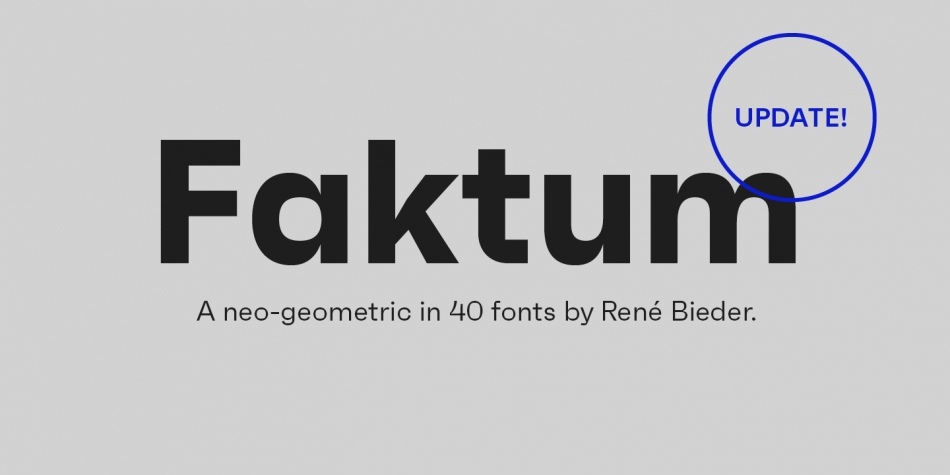
Faktum Font
Faktum Font is perfect for evidence-based branding projects, research institution identities, analytical documentation, scientific communications, data-driven marketing materials, investigative journalism applications, factual reporting typography, and objective advertising campaigns. This authoritative typeface works exceptionally well in both digital applications and print media where factual accuracy and evidence-based credibility are fundamental design requirements.
What makes Faktum Font so exciting is its uncompromising interpretation of objective truth and factual precision through systematic letterforms that embody the same rigorous accuracy and methodical approach demanded by scientific research and evidence-based analysis. The font features reliable characters with analytical proportions, systematic spacing, and factual details that communicate objectivity, empirical reliability, and the unwavering commitment to truth that defines credible research and journalism. Its authoritative personality and scientific heritage make it ideal for organizations seeking to establish credibility through factual accuracy while appealing to audiences who value evidence-based decision making and objective analysis.
The Faktum Font family includes comprehensive weight variations from light to bold, along with matching italic styles and analytical alternates. Each style maintains the typeface's factual character while offering extensive multilingual support, precise numerals, research-focused punctuation marks, and special characters designed to enhance scientific communications and evidence-based branding efforts across global research and journalism markets.
This remarkable typeface represents the perfect convergence of scientific methodology and contemporary typography for research and media industries. Whether you're developing research institution identities, creating scientific publication materials, or designing investigative journalism platforms, Faktum Font Free Download delivers the factual authority and versatility needed for credible evidence-based communications. The font's analytical approach makes it particularly effective for research organizations, news publications, scientific journals, and institutions prioritizing accuracy, objectivity, and the systematic pursuit of verifiable truth.
The precisely engineered factual construction and optimized analytical performance in Faktum Font ensure maximum credibility while maintaining clear communication across all research applications. Its authoritative presence makes it ideal for scientific branding, evidence-based marketing materials, and analytical communications where its full factual character can create lasting trust with audiences seeking reliable information and the assurance of methodical, evidence-based expertise.